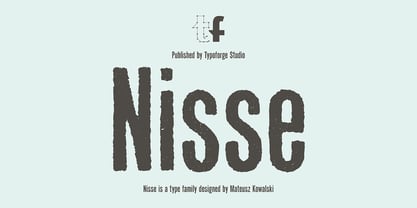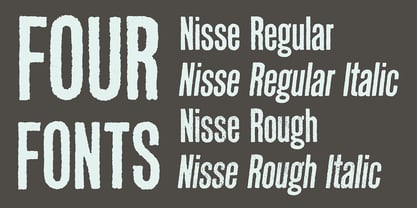
Nisse
by Typoforge Studio
Say hello to a new Typoforge member! Nisse is a display font family that consists of 4 styles (including italics). The regular and rough versions differ in the amount of wear. It’s inspired by Rex typeface first published by „The Jan Idzikowski and Co. Foundry“ in 1930.
Nisse has a high amount of detail making it ideal for large prints and poster design. It is specified by a huge amount of automatic alternates. Each basic latin letter has five versions, the numbers have thee versions and extended latin letters have two versions.
Designers: Mateusz Kowalski
Publisher: Typoforge Studio
Foundry: Typoforge Studio
Design Owner: Typoforge Studio